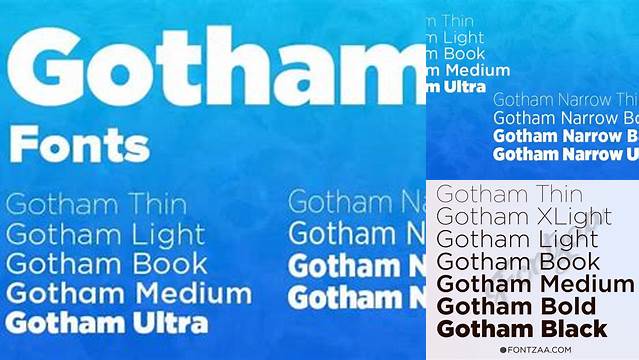
Are you looking to download the Gotham font for free from DaFont? Well, guys, let's dive into the world of typography and explore everything about Gotham font, where to find it, and how to use it effectively in your projects. As a designer, I know how crucial it is to choose the right font to convey the perfect message. Gotham is a modern, geometric sans-serif typeface that has gained immense popularity due to its clean, versatile, and highly legible design. It's been used everywhere from corporate branding to political campaigns, and its impact is undeniable. This comprehensive guide will walk you through the nuances of Gotham font and provide tips on leveraging it for your creative endeavors.
What is Gotham Font?
Gotham font, created by Tobias Frere-Jones in 2000, is a typeface inspired by the architectural signage of New York City. Its clean, straightforward design makes it incredibly versatile, suitable for a wide range of applications. The font exudes a sense of modernity and trustworthiness, which explains why it has become a favorite among designers and brands worldwide. From logos and websites to print materials and advertisements, Gotham offers a balanced and professional look. Its geometric structure ensures readability in both small and large sizes, making it an excellent choice for body text as well as headlines. The appeal of Gotham lies in its simplicity, allowing it to blend seamlessly into various design contexts without overpowering the message. Its neutrality, however, is a strength, providing a canvas for the content to stand out while maintaining a polished aesthetic. This makes Gotham an indispensable tool in any designer's toolkit, capable of elevating any project with its understated elegance and functional design.
Why is Gotham Font So Popular?
Gotham font has skyrocketed in popularity for several compelling reasons, making it a staple in the design world. First and foremost, its versatility is unmatched. Whether you're crafting a sleek corporate identity, designing a user-friendly website, or creating eye-catching marketing materials, Gotham adapts effortlessly. Its clean, geometric forms lend themselves well to both digital and print media, ensuring legibility and visual appeal across all platforms. Secondly, Gotham exudes a sense of modernity and trustworthiness, qualities highly valued by brands looking to establish credibility. Its association with prominent campaigns, such as Barack Obama's 2008 presidential bid, has further cemented its reputation as a font of choice for projects requiring a contemporary and authoritative feel. Additionally, Gotham's neutral design allows it to complement a wide range of visual elements without overshadowing them. This understated elegance makes it easy to pair with other fonts and graphic elements, providing designers with the flexibility to create cohesive and impactful designs. In essence, Gothamâs popularity stems from its ability to deliver a polished, professional look while remaining adaptable to diverse design needs, making it an invaluable asset for designers and brands alike.
Free Alternatives to Gotham Font
Since getting Gotham font for free isn't really an option, letâs explore some excellent free alternatives that capture a similar vibe. One of the top contenders is Montserrat. Designed by Julieta Ulanovsky, Montserrat shares Gotham's geometric sans-serif structure and clean lines, making it a fantastic substitute for various design projects. It's highly legible and works well in both headlines and body text. Another great choice is Open Sans, created by Steve Matteson. Open Sans is known for its neutral yet friendly appearance, making it incredibly versatile for web and print design. It's optimized for readability across different screen sizes, ensuring a pleasant user experience. Lato, designed by Ćukasz Dziedzic, is another notable alternative. Lato features semi-rounded details that give it a warm and approachable feel while maintaining a professional look. Itâs highly readable and performs well in a variety of applications. Additionally, Raleway is worth considering. Initially designed as a display font, Raleway has evolved into a full-fledged typeface with multiple weights and styles. Its elegant and slightly more refined appearance can add a touch of sophistication to your designs. These free alternatives offer similar aesthetic qualities to Gotham, allowing you to achieve a modern and clean look without incurring any licensing costs. They are all readily available on platforms like Google Fonts, making them easily accessible for your design projects.
How to Use Gotham Font Effectively
To use Gotham font effectively in your design projects, it's essential to understand its strengths and how it interacts with other design elements. First, leverage its clean and geometric structure to create a sense of modernity and clarity. Gotham works exceptionally well in minimalist designs where simplicity and readability are key. Use it for headlines, body text, and captions to maintain a consistent and professional look. When pairing Gotham with other fonts, consider using a contrasting typeface to add visual interest. For example, a serif font like Merriweather or Playfair Display can create a balanced and sophisticated combination. Pay attention to font weights and sizes to establish a clear visual hierarchy. Use heavier weights for headlines to draw attention and lighter weights for body text to ensure readability. Also, consider the letter spacing and line height to optimize the text's visual appeal and legibility, especially in longer paragraphs. Gotham's versatility allows it to be used in various contexts, from corporate branding to web design. However, avoid overusing it, as its ubiquity can sometimes make designs feel generic. Instead, use it strategically to highlight key information and create a cohesive visual identity. By understanding these principles, you can harness the power of Gotham font to create impactful and visually appealing designs.
Tips and Tricks for Working with Fonts
Working with fonts can significantly impact the overall look and feel of your designs. Here are some tips and tricks to help you make the most of your typography. First, always choose fonts that align with your brand's personality and message. A playful, script font might not be the best choice for a serious, corporate brand, while a clean, geometric font like Gotham might not suit a whimsical, creative project. Secondly, limit the number of fonts you use in a single design. Sticking to two or three fonts can help maintain a cohesive and professional look. Use different weights and styles of the same font family to create visual interest without overwhelming the design. Pay close attention to kerning and tracking to ensure that your text is legible and visually appealing. Adjusting the spacing between letters can significantly improve the overall readability of your text. Also, be mindful of line height and paragraph spacing. Adequate spacing between lines and paragraphs can make your text easier to read and more inviting. Experiment with different font pairings to find combinations that work well together. Use online resources and typography guides to discover complementary fonts that enhance your design. Finally, always test your fonts across different devices and platforms to ensure they render correctly. What looks great on your computer screen might not look the same on a mobile device or in print. By following these tips and tricks, you can elevate your typography skills and create designs that are both visually appealing and effective.
So, guys, while you might not find Gotham font for free on DaFont, there are plenty of legal and ethical ways to achieve a similar look in your design projects. Whether you opt for a subscription service like Adobe Fonts, purchase the font directly, or explore free alternatives like Montserrat or Open Sans, remember that good typography is about more than just the font itself. It's about how you use it to communicate your message effectively. By understanding the principles of typography and experimenting with different font combinations, you can create designs that are both visually appealing and impactful. Happy designing!